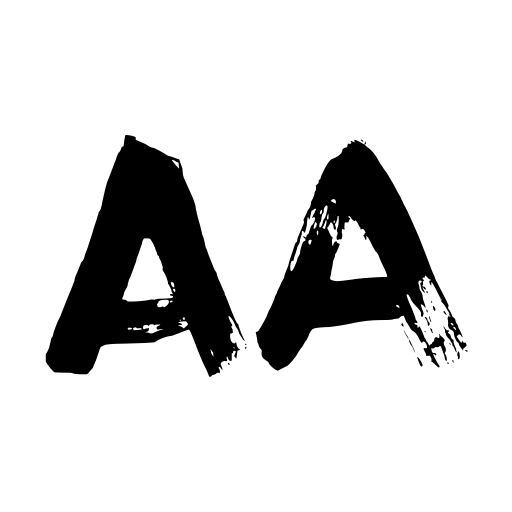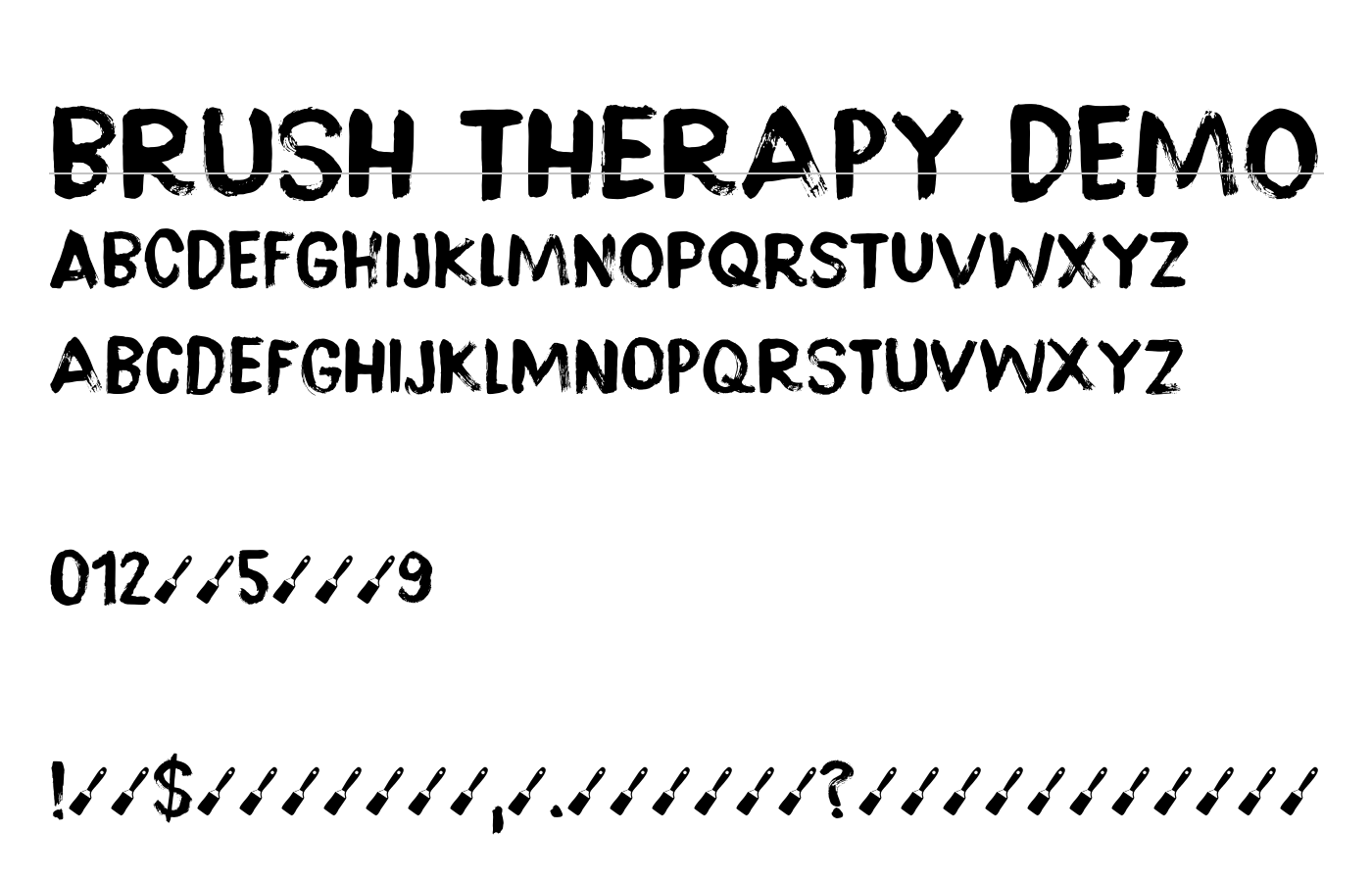
Brush Therapy DEMO is a bold, textured brush script font with an expressive, hand-painted look that adds a dynamic and artistic feel to any design. Its irregular strokes and rough edges create a raw, energetic style perfect for creative projects, posters, and branding that seek a playful and authentic vibe. This font works best where a personal, vivid impact is needed, especially in headlines and logos.
Brush Therapy DEMO Font
About Brush Therapy DEMO Font
| Font family | Brush Therapy DEMO Font |